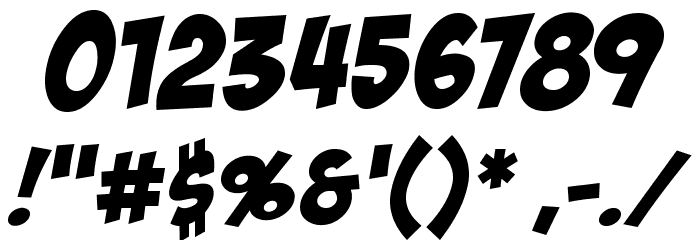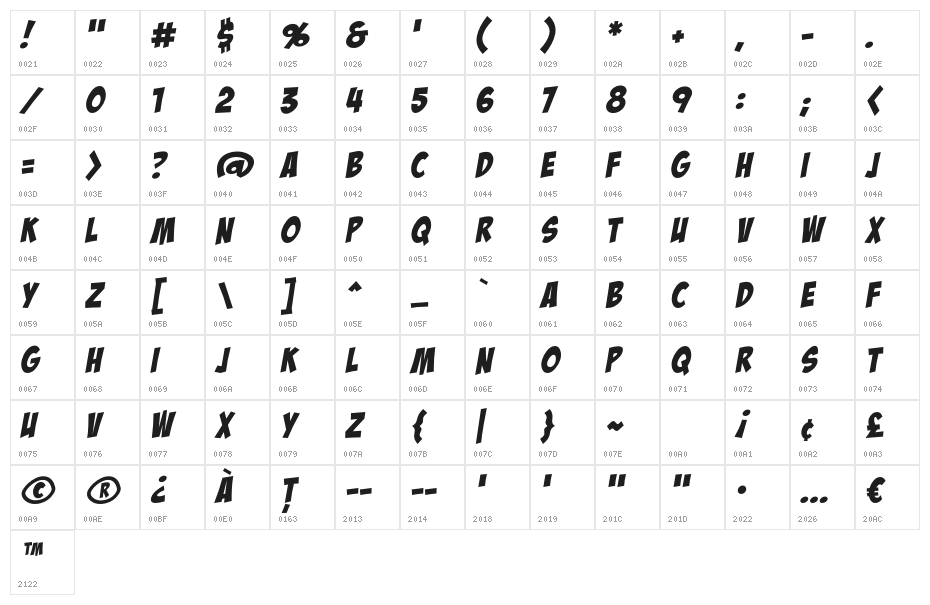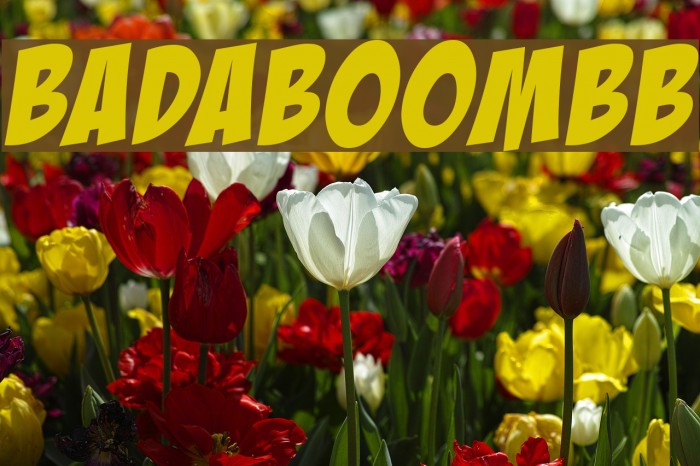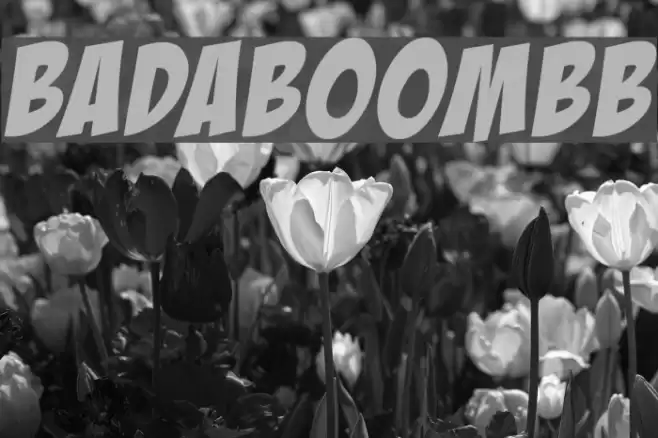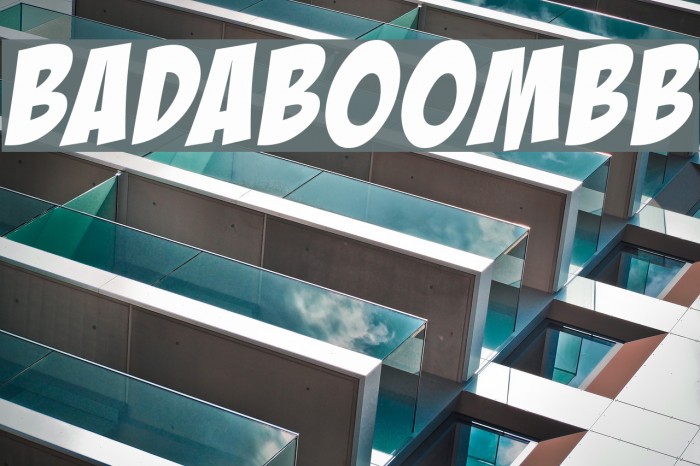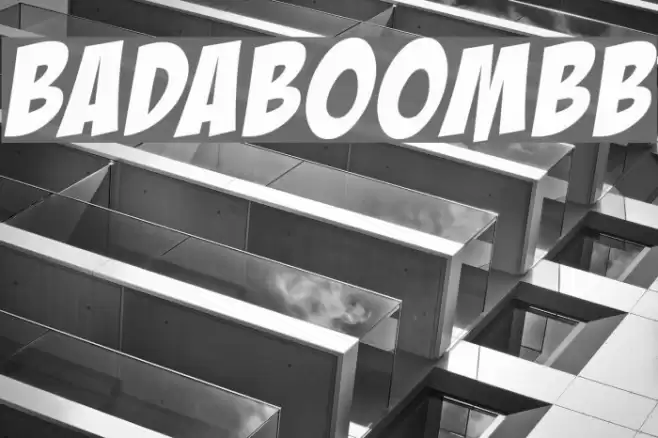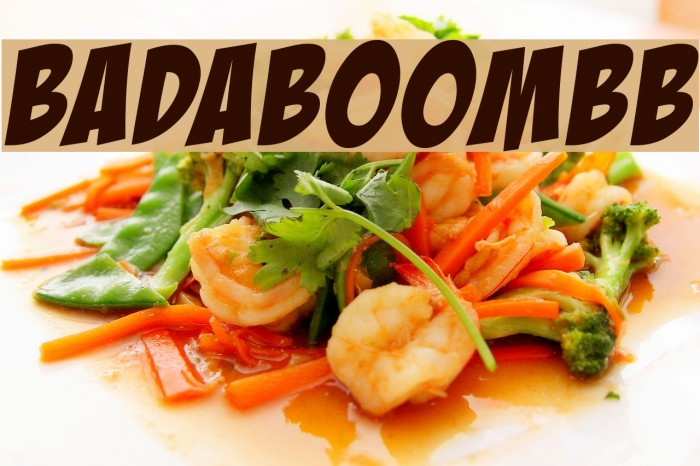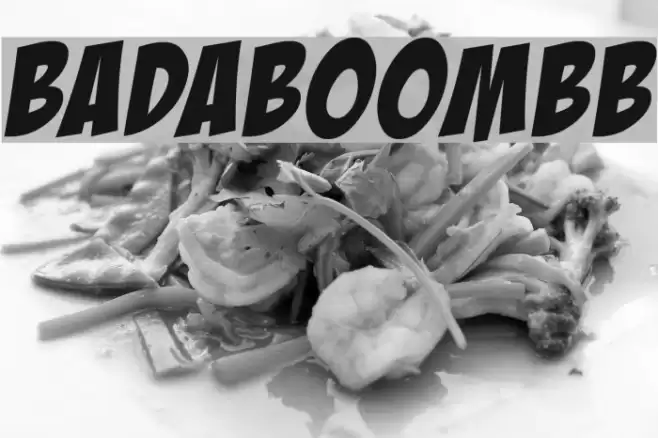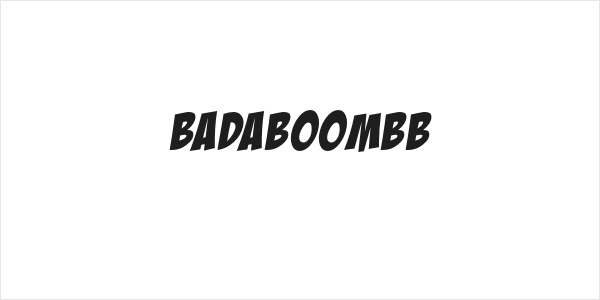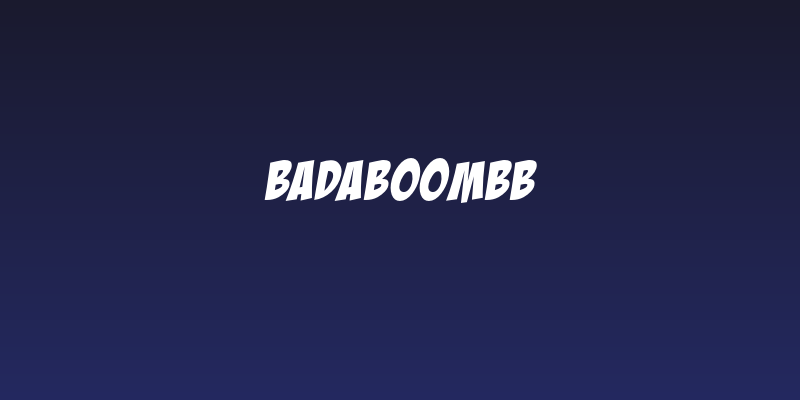
BadaBoomBB Font
BadaBoomBB Description
This font features a bold and dynamic style with a strong presence. The characters are slightly slanted, giving a sense of movement and energy. The strokes are thick and consistent, creating a powerful visual impact. The uppercase and lowercase letters maintain a uniform style, with sharp angles and clean lines. The numbers and special characters are equally bold, ensuring readability and emphasis. This font is ideal for projects that require a strong and attention-grabbing typeface.
| Overall Style | Dynamic and Energetic |
| Use Case | Headlines, Posters, Advertisements |
| Proposed Projects | Comic books, posters, advertisements, and any design needing a bold, energetic typeface. |